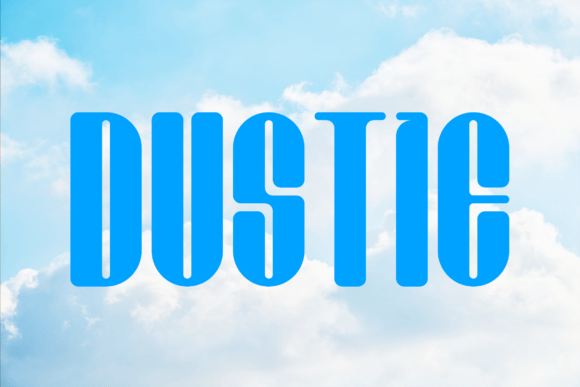
The Power of a Bold Design
Have you ever been working on a project and suddenly, you need to grab the viewer’s attention? Maybe it’s a sports team’s jersey design, a movie poster, or a book cover that demands to be noticed. In those moments, a font that stands out from the crowd can be the difference between a forgettable design and a showstopper. This is where the Dustie Font comes in – a robust, attention-grabbing font designed to make any project shine.
As a designer, you know how challenging it can be to find the perfect font for a project. But with Dustie Font, you have a versatile tool that can elevate your designs and leave a lasting impression. Whether you’re working on a sports design, a film logo, or a game poster, this font is sure to bring a level of sophistication and boldness that’s hard to resist.
Dustie Font Key Features
- Font Family: Dustie is a sans-serif font family.
- Unique Characteristics: The font features a unique blend of modern and retro elements, with a distinctive rounded edge and geometric shapes.
Dustie Font Review
I’ve had the chance to play around with the Dustie Font, and I have to say, it’s a unique addition to any design project. ✨
- 🌟Playful feel – Dustie Font has a quirky, whimsical feel that’s perfect for projects that need a bit of personality.
- Customization options – The font offers a range of customization options, including different weights and styles, which makes it easy to tailor to your specific needs.
- Legibility – Despite its playful nature, Dustie Font is surprisingly legible, making it a great choice for body text as well as headings.
However, there are some limitations:
- ⚠️Limited language support – Dustie Font may not be the best choice for projects that require support for multiple languages.
- ⚠️Not suitable for formal projects – The playful feel of Dustie Font makes it better suited for informal projects or brands with a more lighthearted tone.
Overall, I think Dustie Font is a great addition to any design toolbox. It’s perfect for projects that need a bit of personality and whimsy. Just be aware of its limitations and use it accordingly.
The Dustie font is ideal for:
- Handwritten-style invitations and cards
- Whimsical branding and logo design
Comparison to Dustie Font: While both fonts are elegant, Playfair Display is more ornate and luxurious, making it suitable for high-end designs. Dustie Font, on the other hand, has a more vintage feel and is often used for retro-themed designs.
Comparison to Dustie Font: Great Vibes has a more modern and sleek feel compared to Dustie Font, making it suitable for contemporary designs. Dustie Font, while elegant, has a more vintage and eclectic feel.